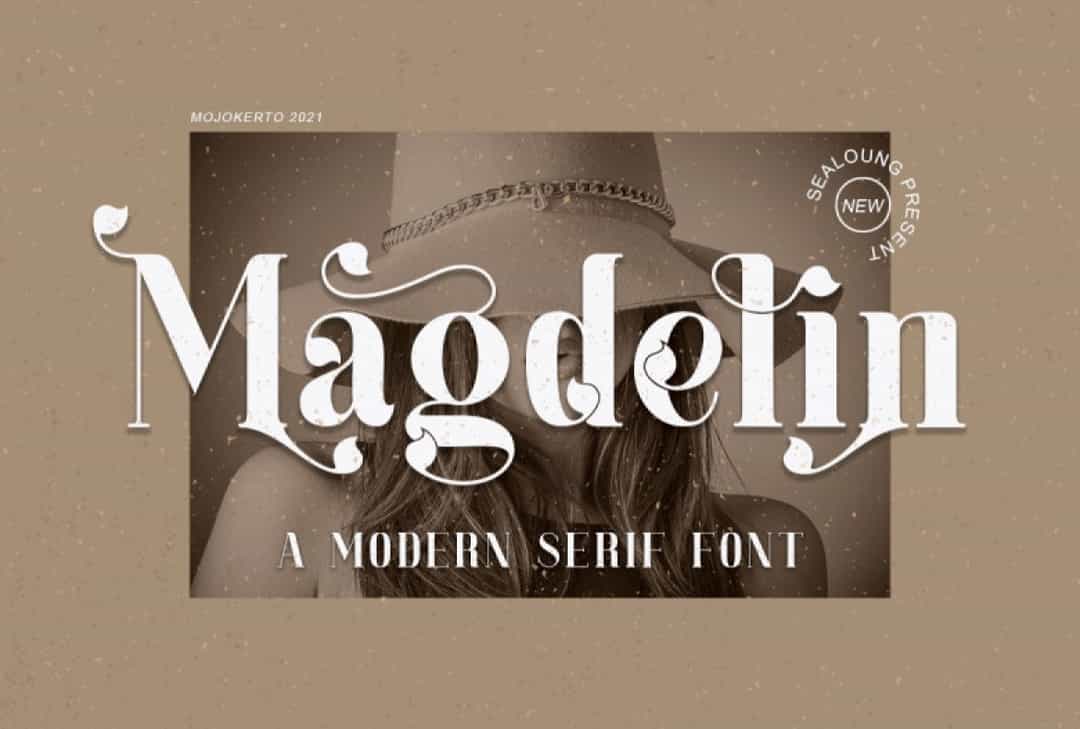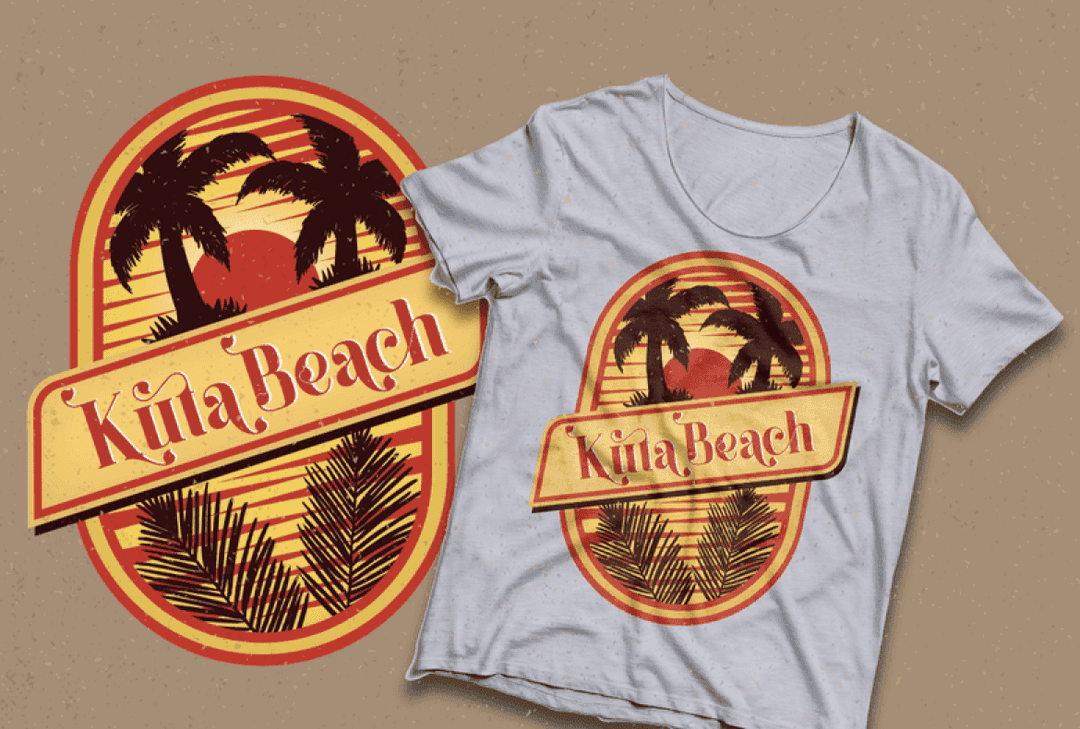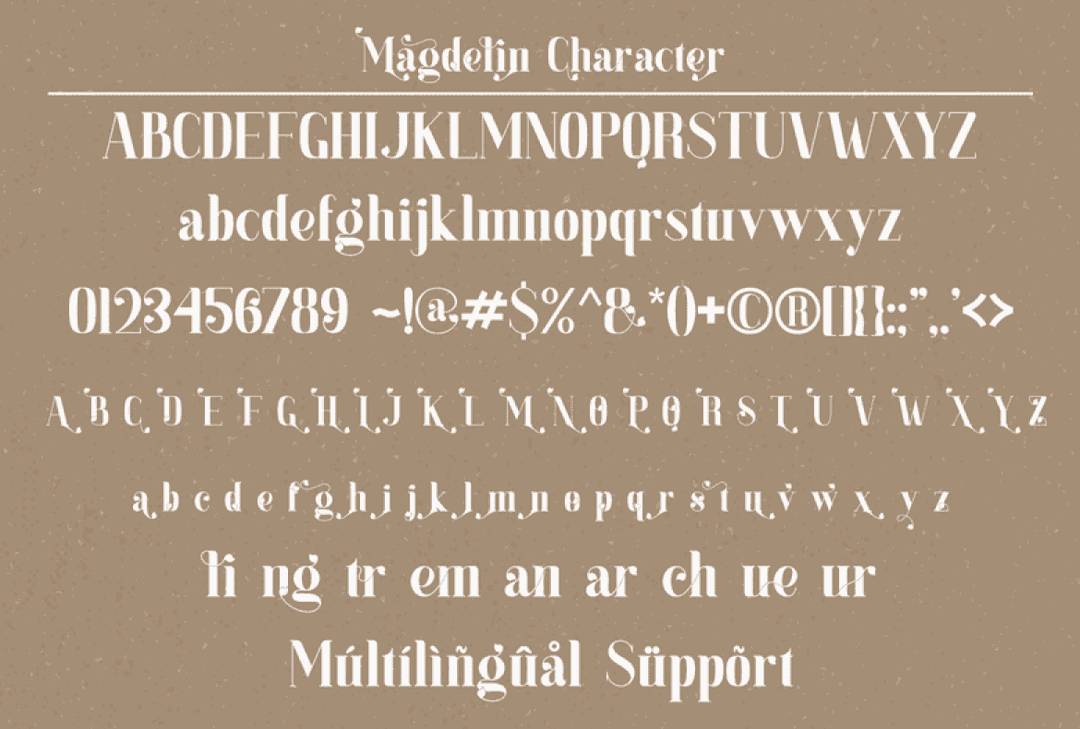
Magdelin is beautiful serif font with nice and smooth lines which is prefect for use in magazines and fashion related works. Try to incorporate it in your designs and you will be amazed at the results that will be achieved.